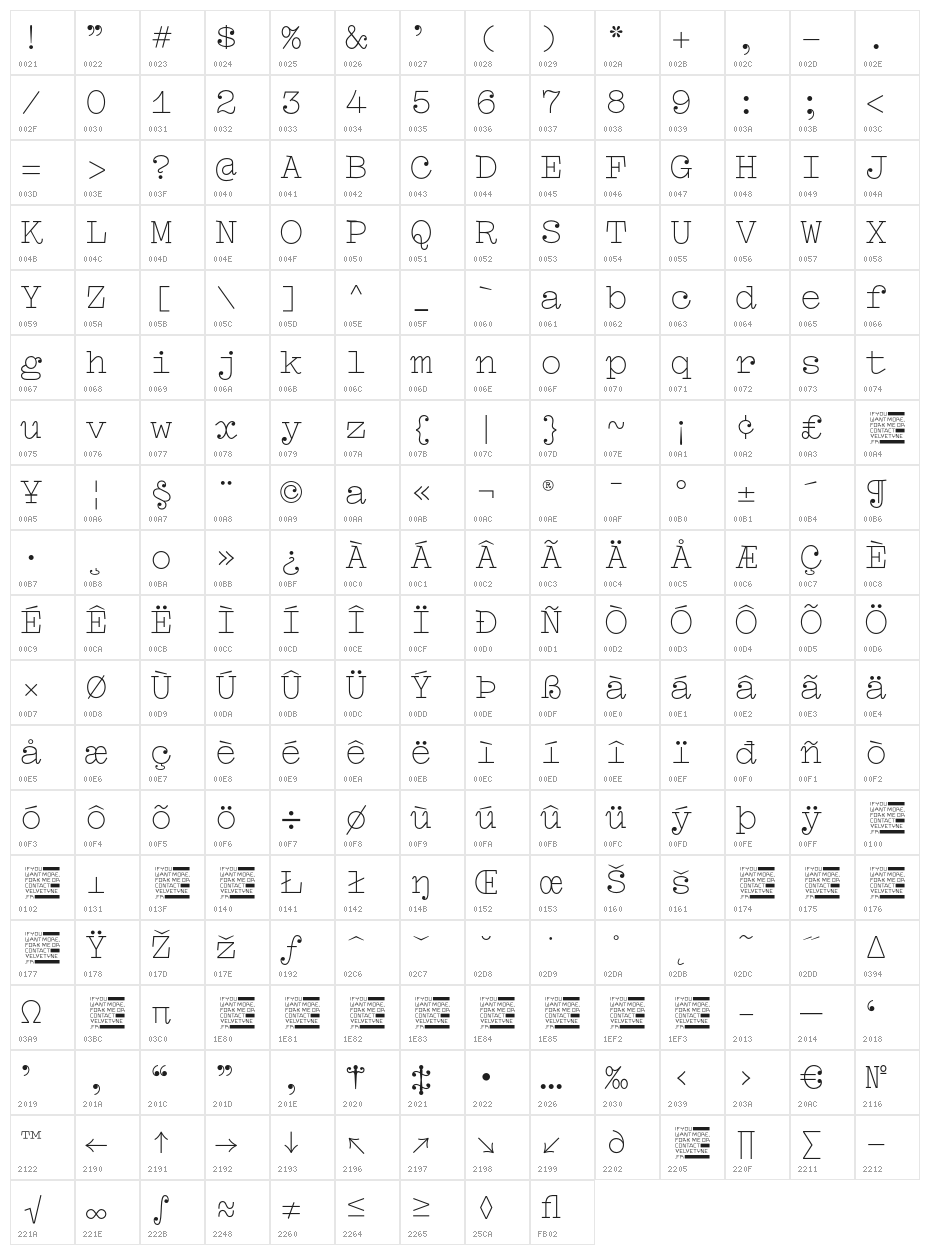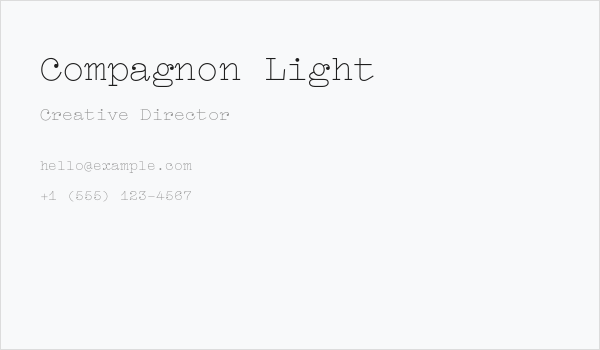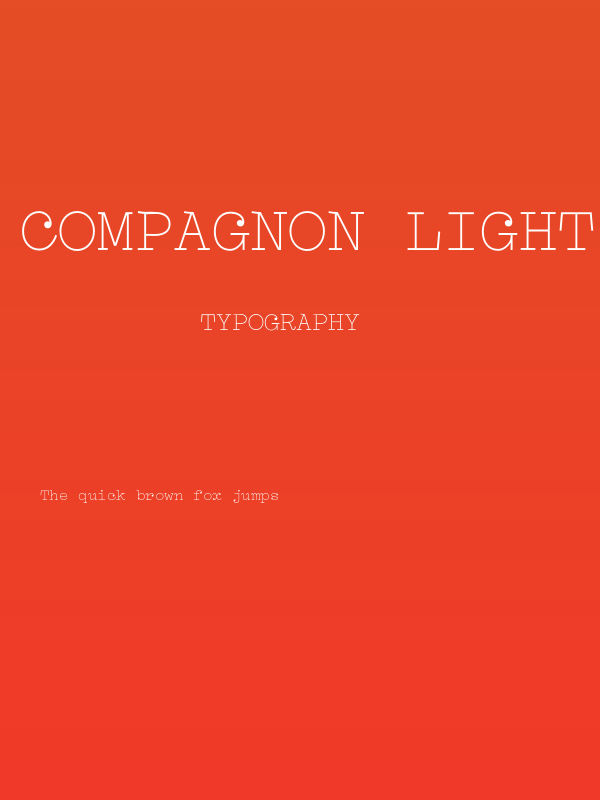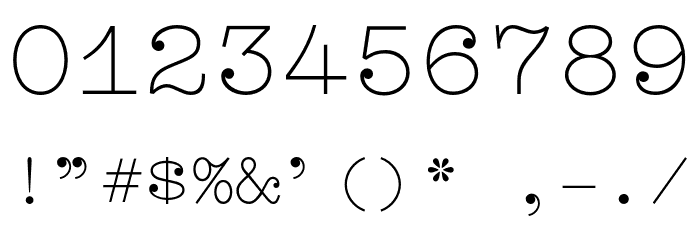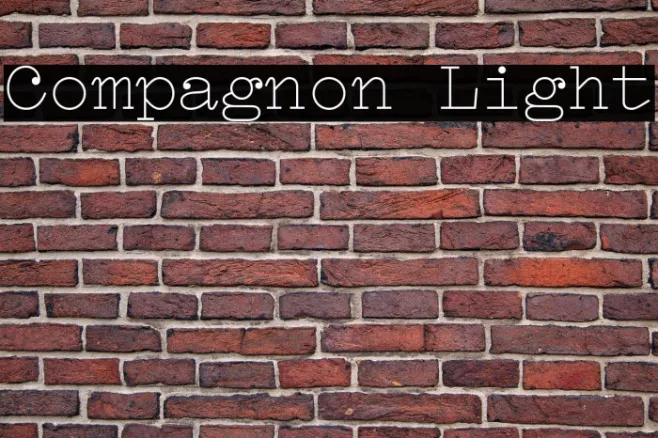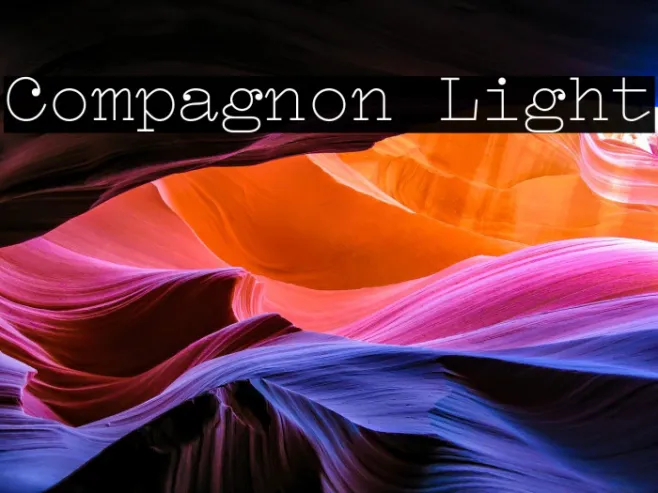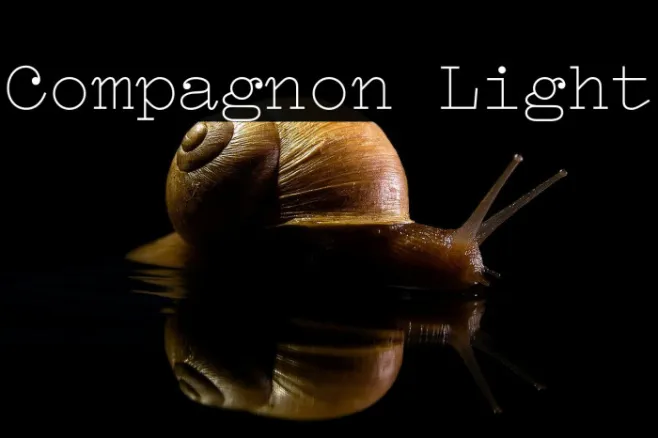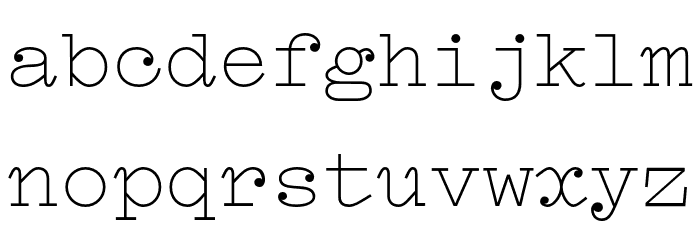
Compagnon Light Font
Compagnon Light Description
This font features a delicate and elegant design with a light and airy feel. The characters are crafted with a monospaced style, providing uniformity and precision. Each letter is distinct, with subtle curves and a slight serif that adds a touch of sophistication. The numbers and special characters maintain the same aesthetic, ensuring consistency across all elements. The overall appearance is clean and modern, making it suitable for a variety of applications where clarity and style are paramount.
| Use Case | Coding, Technical documents, Branding |
| Proposed Projects | Ideal for coding environments, technical documents, minimalist design projects, and modern branding. |